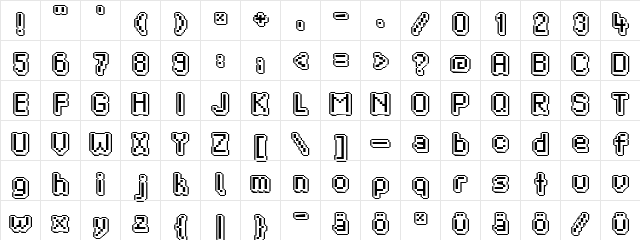
zedfox out Regular Font Preview
zedfox out Regular
zedfox out Regular Font Details
| Designer | spacefox |
Design Context for zedfox out Typeface
zedfox out takes a measured approach to typography — its balanced proportions and neutral character make it a reliable workhorse for both digital and print work.